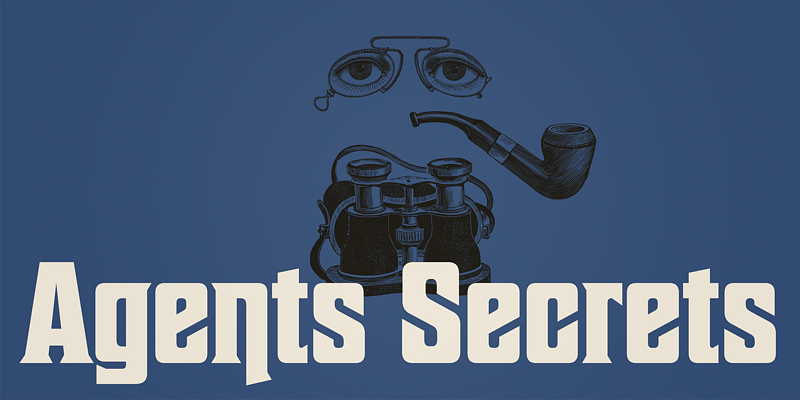
Sheepman specimen
Sheepman
Sheepman has soft and natural impression by their soft curved serif. All glyphs had been designed carefully to be retro-looking of the old time and to fill all with nostalgia.